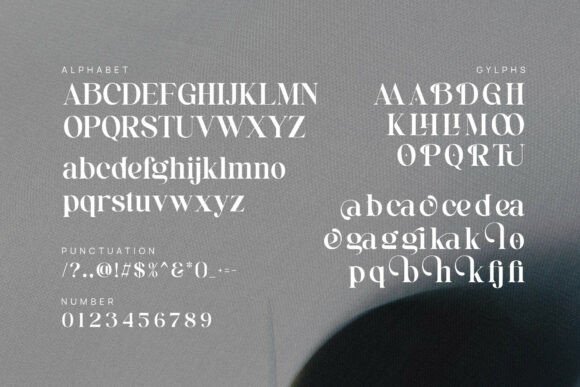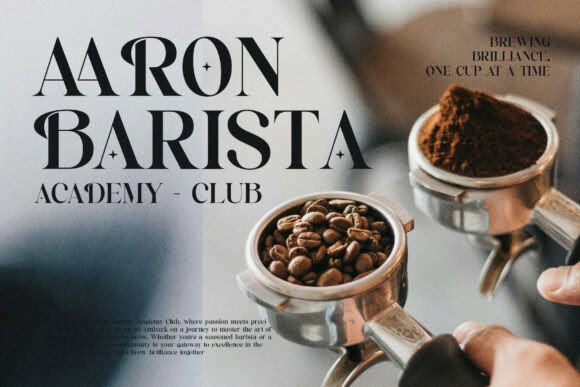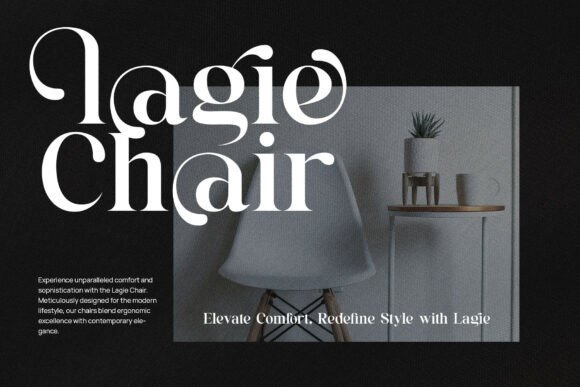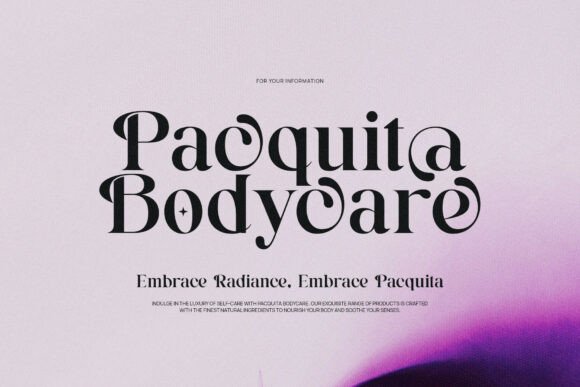
Glikema Font: Elevate Your Designs with a Timeless Serif Beauty
In the realm of typography, a font can make or break a design. For designers and crafters seeking to create visually stunning logos, branding materials, and quotes, Glikema Font stands out as an exceptional choice. This lovely and timeless serif font is crafted to breathe life into your designs, offering a unique and beautiful touch to every letter.
The Essence of Glikema Font
Glikema Font is more than just a typeface; it’s a design element that can elevate your work from ordinary to extraordinary. Its serif elegance makes it particularly suited for projects where tradition meets modernity. Whether you’re working on a logo, a brand identity, or a decorative quote, Glikema provides the sophistication and charm needed to capture attention and inspire.
Why Choose Glikema Font?
- Timeless Appeal: Glikema’s classic serif design ensures that your work remains relevant and stylish for years to come. Unlike trendy fonts that may quickly become outdated, Glikema’s timeless beauty guarantees a lasting impression.
- Unique Character: Every letter in the Glikema Font has been carefully crafted to possess a unique and beautiful touch. This distinctive character sets Glikema apart from more generic fonts, allowing your designs to stand out in a crowded visual landscape.
- Versatility: Glikema’s versatility makes it an excellent choice for a wide range of design projects. From elegant logos and professional branding to inspirational quotes and creative crafts, Glikema adapts seamlessly to various contexts.
- Eye-Catching Logos and Branding: For businesses and individuals looking to create memorable logos and branding materials, Glikema offers the perfect blend of professionalism and personality. Its eye-catching appearance ensures that your brand leaves a lasting impression on your audience.
Applications of Glikema Font
The applications of Glikema Font are vast and varied, catering to the needs of designers, crafters, and businesses alike. Here are a few ideas to get you started:
- Logo Design: Create stunning logos that embody your brand’s essence with Glikema’s elegant and distinctive serifs.
- Branding Materials: Elevate your brand identity with Glikema’s sophisticated touch, perfect for business cards, letterheads, and packaging.
- Quotes and Typography: Add a touch of elegance to your quotes, posters, and typographic artworks with Glikema’s beautiful and expressive letters.
- Crafting and DIY Projects: Incorporate Glikema into your crafting and DIY projects, such as handmade cards, journals, and home decor, for a personal and stylish touch.
Tips for Using Glikema Font Effectively
To make the most of Glikema Font, consider the following tips:
- Pair with Complementary Fonts: Combine Glikema with sans-serif fonts for contrast or with other serif fonts for harmony, depending on your design needs.
- Experiment with Sizes and Weights: Play with different sizes and weights of Glikema to create visual hierarchy and emphasize key elements in your design.
- Pay Attention to Kerning: Ensure optimal kerning to maintain the elegance and readability of Glikema, especially in larger bodies of text.
Glikema Font is a versatile and beautiful serif font that can transform your designs, offering a perfect blend of timeless elegance and unique character. Whether you’re a professional designer or a crafting enthusiast, Glikema provides the tools you need to create eye-catching logos, stunning branding materials, and inspiring quotes. Embrace Glikema in your next project and experience the difference a truly exceptional font can make.